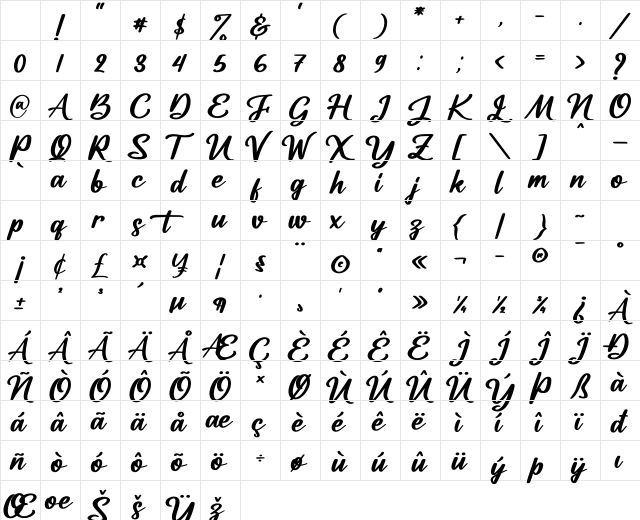
Complete Catalish Huntera Regular glyph index. Displaying only characters natively supported by Catalish Huntera Regular font.
Catalish Huntera is a composed and adaptable typeface that performs quietly and consistently across a wide range of design contexts.